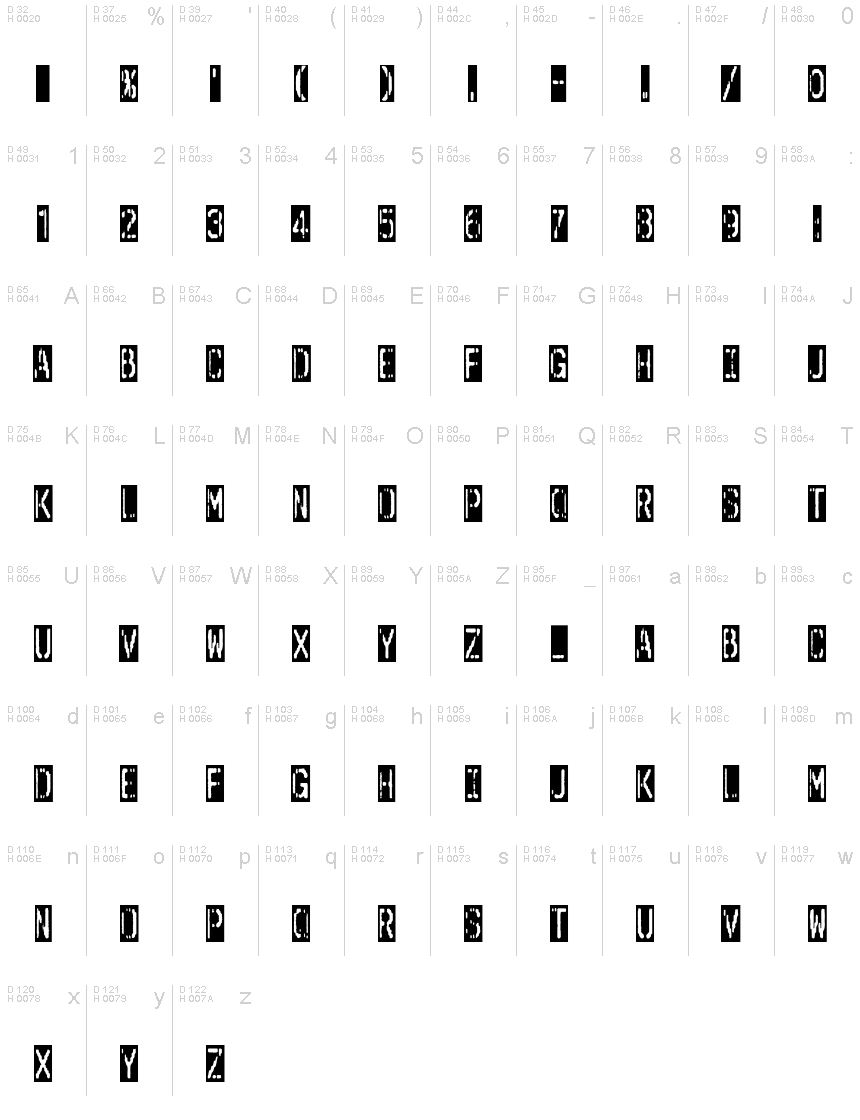
Outerspace Shoping
Outerspace Shoping is a captivating display font that exudes an otherworldly charm. Distorted and condensed, its negative space creates a striking visual effect, reminiscent of a cosmic landscape or the interior of a spaceship. The irregular, jagged edges convey a sense of motion and energy, making this font an ideal choice for bold, attention-grabbing designs.
This font's unique aesthetic lends itself well to a variety of applications, from sci-fi-inspired logos and event posters to digital interfaces and packaging. Its distinct style can add an air of futurism and adventure to any project, seamlessly blending form and function to create a truly memorable visual experience.